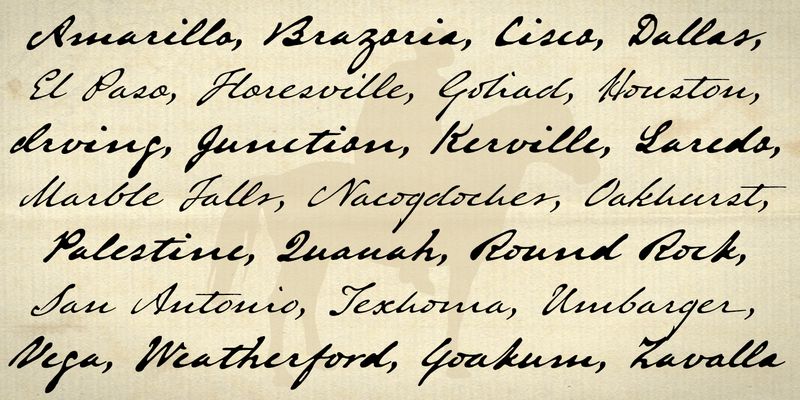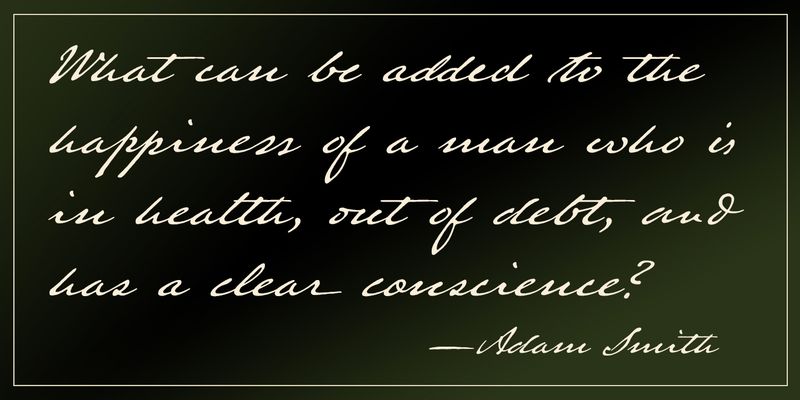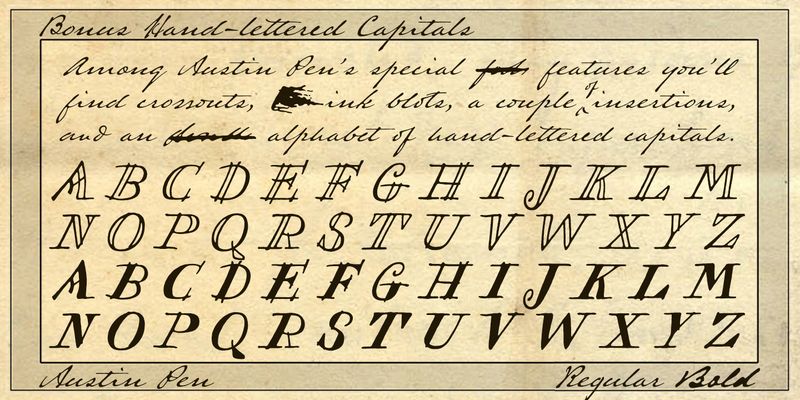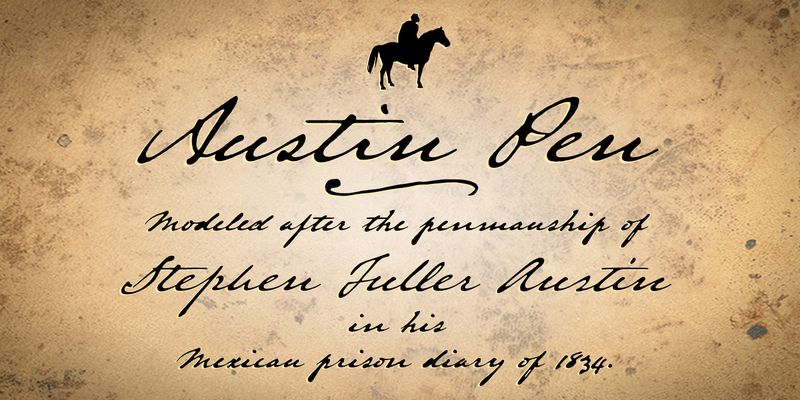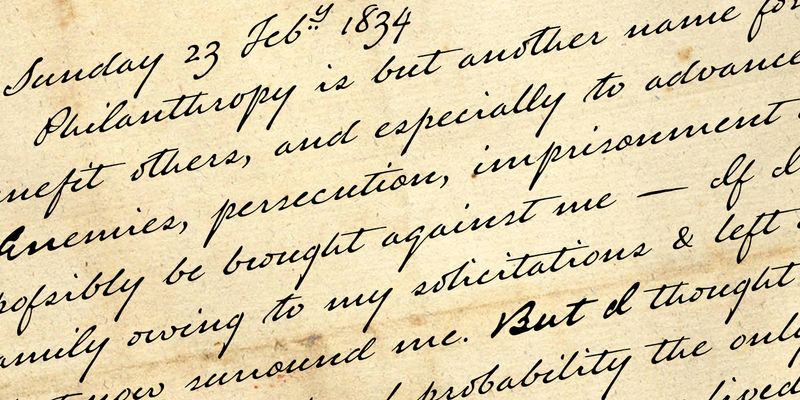
Austin Pen™ replicates the hand of Stephen F. Austin in his famous 1834 Mexican prison diary. Has a regular style and a bold that that seems applied by over-inked pen. Nearly 1,200 glyphs in all.